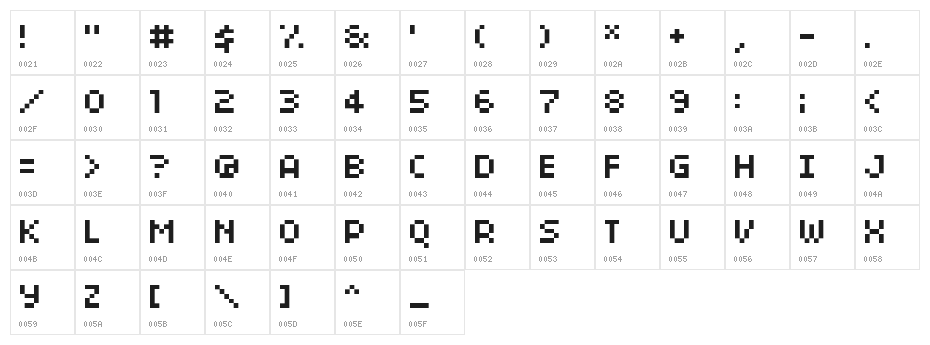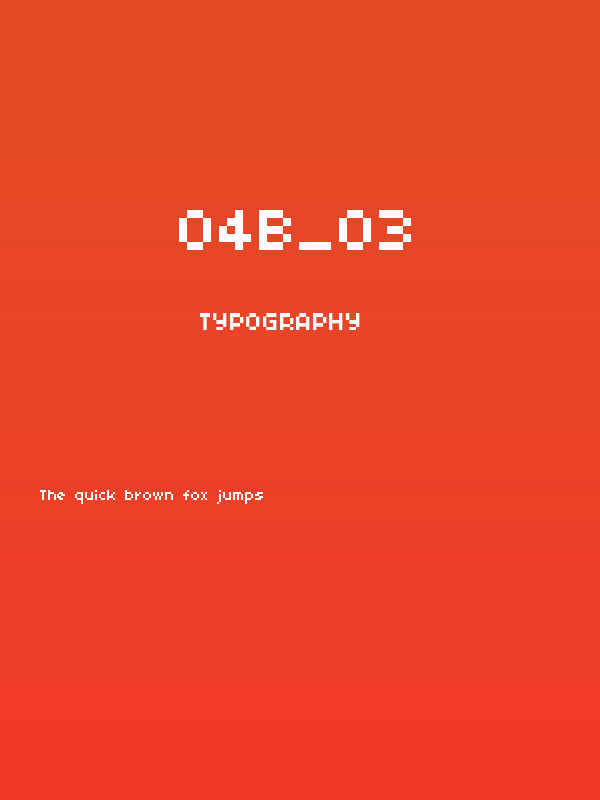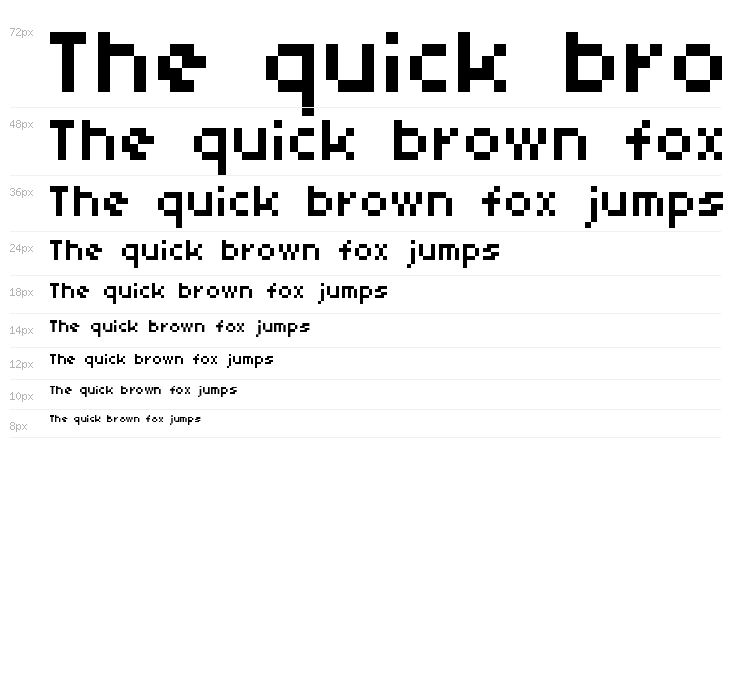
04b_03 Font
04b_03 Description
This font features a pixelated, blocky design reminiscent of early digital displays and retro video games. Each character is constructed with a grid-like precision, giving it a distinctly digital and geometric appearance. The uniformity in stroke width across all characters contributes to a cohesive and structured look. The uppercase and lowercase letters maintain a consistent height, enhancing readability in both small and large sizes. The numerals and special characters follow the same pixelated style, ensuring a harmonious visual experience. This font's nostalgic feel makes it ideal for projects that aim to evoke a sense of classic computing or retro gaming aesthetics.
Overall StyleRetro, Digital
Use CaseHeadlines, Logos, Digital Art
Proposed ProjectsIdeal for retro video game designs, digital art projects, tech-themed posters, and any creative work that seeks to capture a nostalgic digital era.